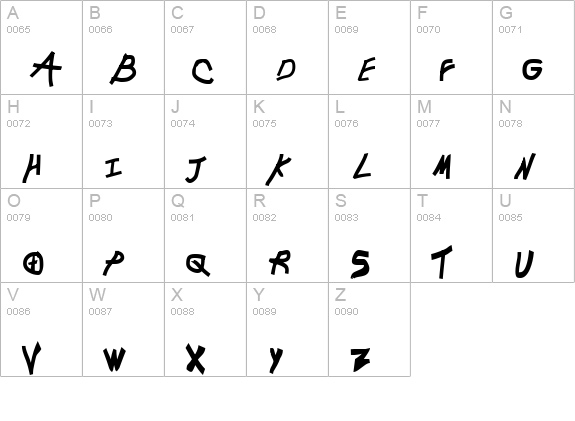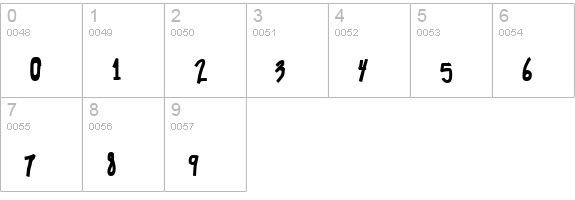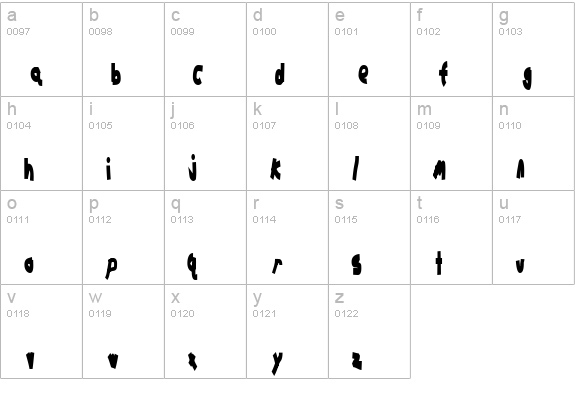
Chunkmuffin Font Details
Chunkmuffin font is a bold and playful typeface that is perfect for catching the eye and adding a touch of whimsy to your designs. With its chunky letters and rounded edges, Chunkmuffin exudes a fun and friendly vibe that is sure to make a statement. Whether you're creating posters, invitations, or social media graphics, Chunkmuffin will bring a touch of charm and personality to your projects. Best of all, Chunkmuffin is available for free download at FontsMarket.com. This means you can easily add this delightful font to your collection without breaking the bank. So go ahead and unleash your creativity with Chunkmuffin font - it's the perfect choice for adding a touch of fun to your designs!